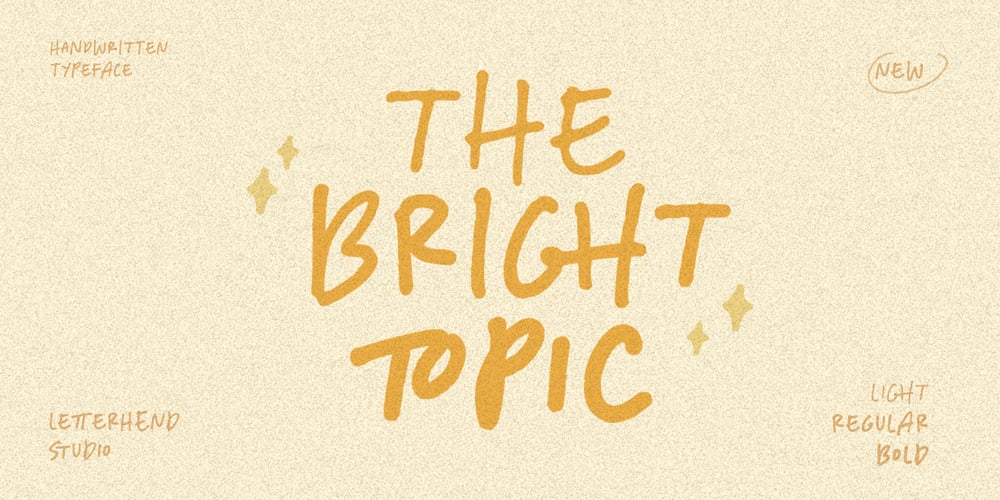
Bright Topic Font Family was designed by Hendry Juanda and published by Letterhend. Bright Topic contains 3 styles and family package options. The Bright Topic is a beautiful typeface based on manual hand writing. The natural flow with 3 styles weight make this font looks a real hand writing instead of typing a font. This type of font perfectly made to be applied especially in logo, and the other various formal forms such as invitations, labels, logos, magazines, books, greeting / wedding cards, packaging, fashion, make up, stationery, novels, labels or any type of advertising purpose.Features : 3 styles weight uppercase & lowercase numbers and punctuation multilingual alternates and ligatures PUA encoded We highly recommend using a program that supports OpenType features and Glyphs panels like many of Adobe apps and Corel Draw, so you can see and access all Glyph variations.